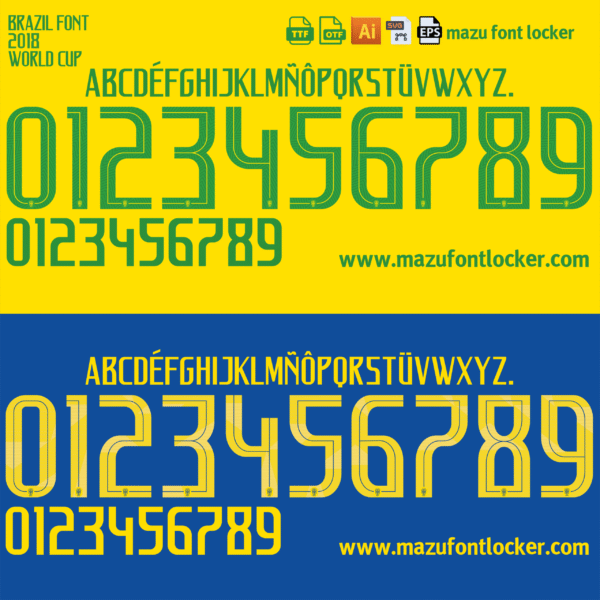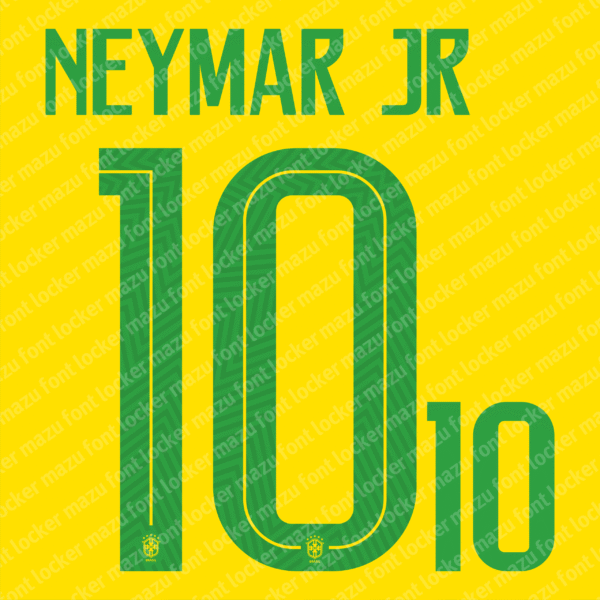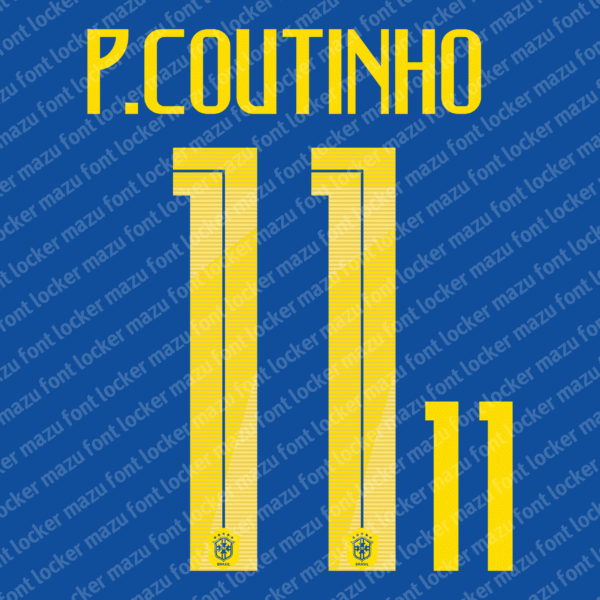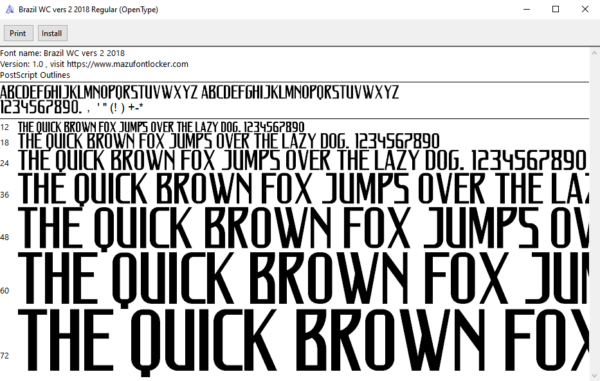
Brazil World Cup 2018 Font Vector – Legendary Seleção Golden Masterpiece
Get the official Brazil World Cup 2018 jersey look with this premium vector font set. This high-quality font is meticulously crafted to replicate the authentic lettering and numbering used by Brazil for the World Cup 2018. Perfect for kit designers, fans, and professional sportswear customisation, it ensures a sharp, match-day finish for both digital and print projects.
- Complete Set: Includes full A-Z alphabet and 0-9 numbers.
Brazil World Cup 2018 Font Vector – Authentic Jersey Lettering
Brazil World Cup 2018 font is a high-quality football jersey font vector created to replicate the official lettering and numbering style used during the iconic World Cup 2018. Perfect for designers, football fans, and jersey customisation projects, this font set delivers an authentic and professional match-day appearance.
Inspired by the original Brazil World Cup 2018 team kit, every letter and number has been carefully recreated to ensure accurate retro styling for both digital and print projects.
- Authentic World Cup 2018 Brazil jersey lettering style
The authentic lettering style helps recreate the classic look of the Brazil World Cup 2018 kit with professional accuracy.
Unlike generic jersey fonts, this set is designed with a strong focus on authenticity and accuracy. Every detail is based on the original match lettering style used during the World Cup 2018, helping designers and collectors create realistic football shirt designs.
This Brazil World Cup 2018 font vector set is designed for authentic football jersey customization and works perfectly for retro football projects, collector designs, and professional sportswear artwork.